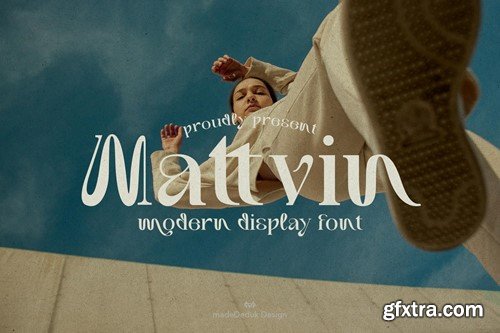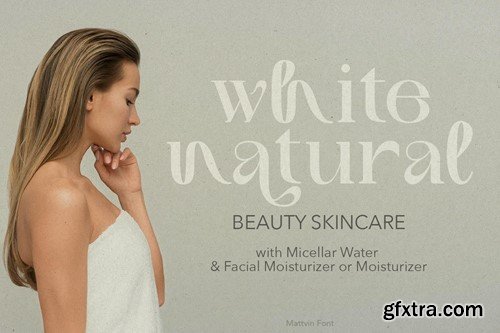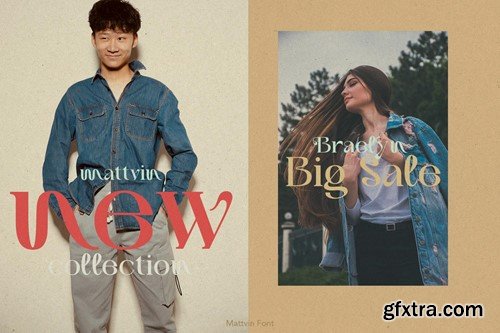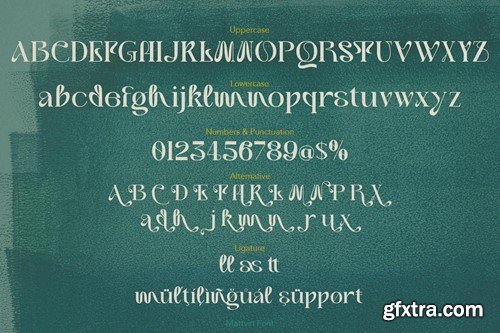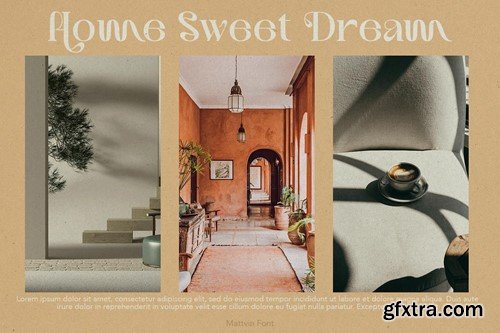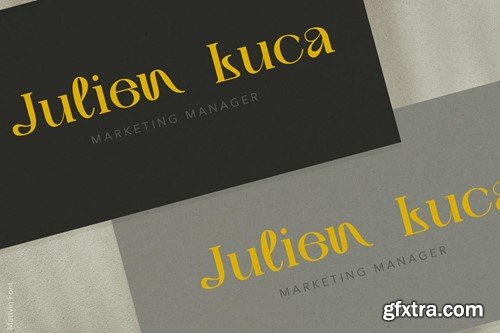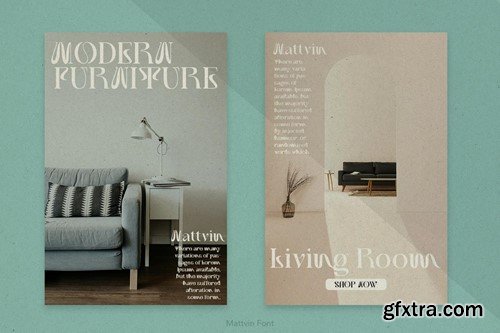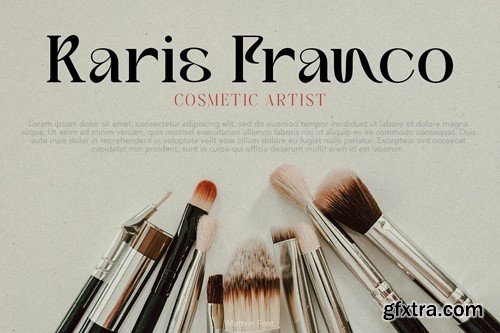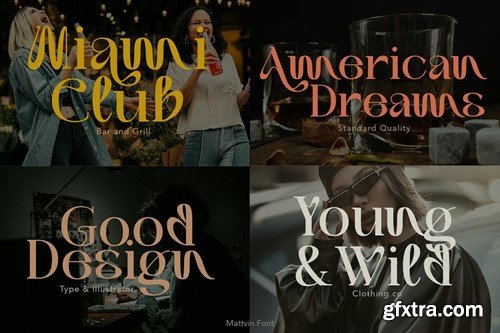
Mattvin Display Font
Mattvin is a display serif, simplistic, high-contrast sans that is at home in high-end fashion and cultural environments you can explore and combine. use this font for any branding, product packaging, invitation, quotes, t-shirt, label, poster, logo etc. Feature Feel free to drop us a message any time and follow my shop for upcoming updates. Hope you enjoy it.